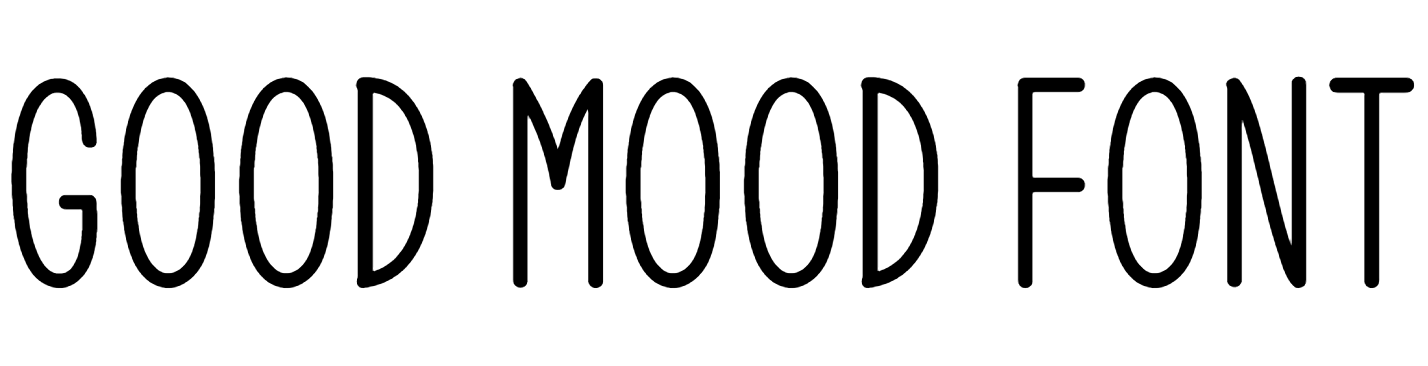
Good Mood Font Preview
Good Mood
Good Mood is a sans serif font (2020). It has a clean, no-nonsense look that fits modern brands and websites. It's a free download, and you can try it with your own text in the preview above first.
What You Can Type With Good Mood
You get every letter from A to Z in both cases and all the numbers from 0 to 9, which means Good Mood can handle full sentences, dates and prices. Common punctuation such as &, !, ? and @ is included as well. It also has the accented letters you need for Spanish, French, German, Portuguese and Italian.
Where Good Mood Works Best
Think of Good Mood for websites, app screens and clean logos. It works for headings and body text alike. If the download has several weights, use a heavier one for titles and a lighter one for paragraphs.
Does Good Mood support accented letters?
Yes. Good Mood includes the accented letters needed for Spanish, French, German, Portuguese and Italian, so it works for more than just English.